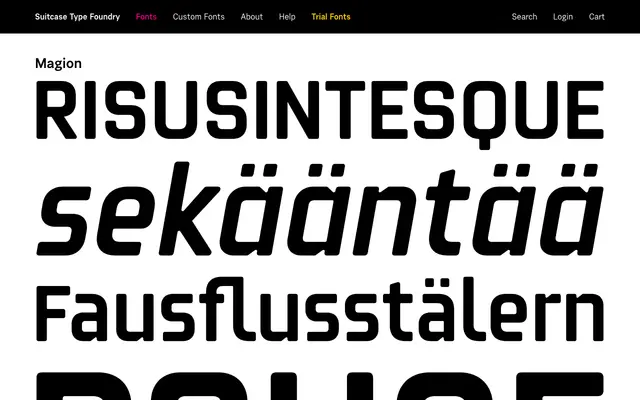
A geometric sans from Suitcase Type Foundry with minimal publicly available detail at the time of cataloguing.
Magion is offered by Suitcase Type Foundry, a Czech foundry known for considered contemporary type design. The page yields little descriptive copy, making detailed assessment of the family's scope or intent difficult. Trial fonts are available directly from the foundry's site for hands-on evaluation.
The name and foundry context suggest a geometric or futuristic sans-serif design typical of Suitcase Type Foundry's contemporary Central European output, though page content is too sparse to confirm finer classification details.